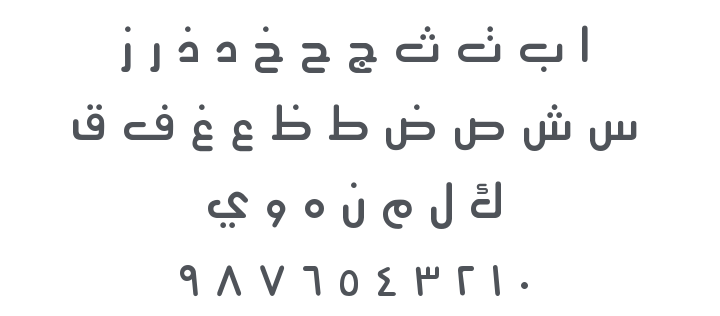
Mothanna Font Family
by Khaled Hosny
About Mothanna
Mothanna (from Arabic مثنى; twisted, bended) is a sans-serif like Arabic OpenType font, Intented mainly for use in software UI. It is developed by Arabeyes.org as part of Khotot project.
Currently supported languages: Arabic (basic Arabic, no Quranic support yet), Farsi, Pashto and Urdu